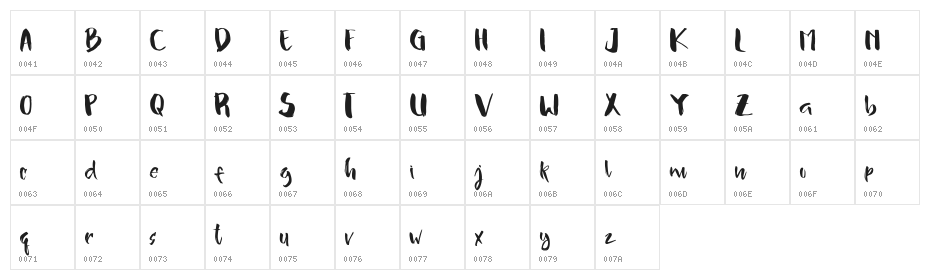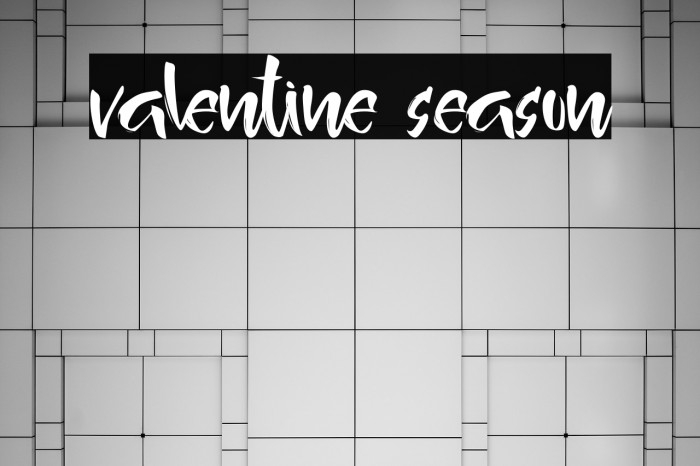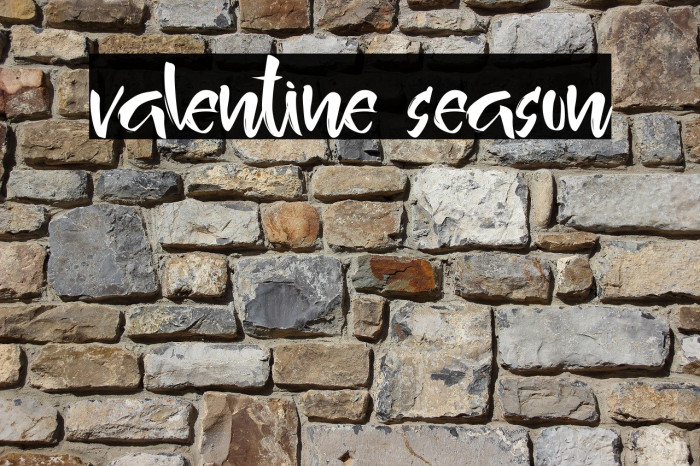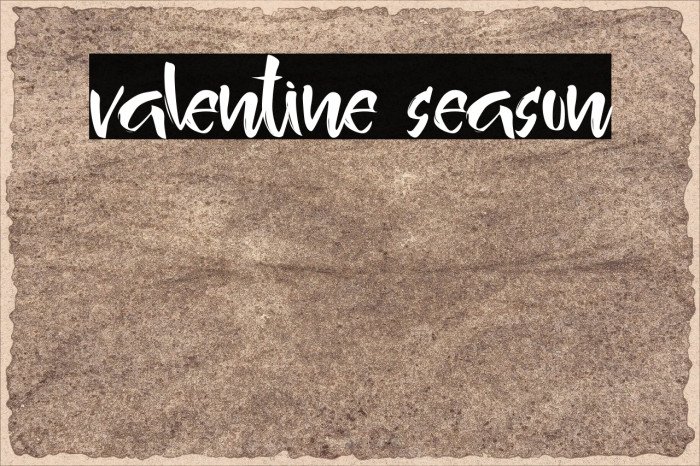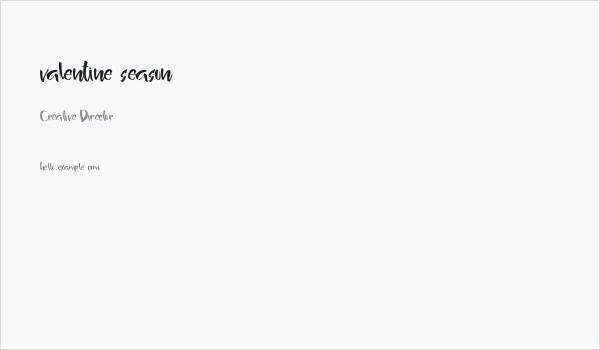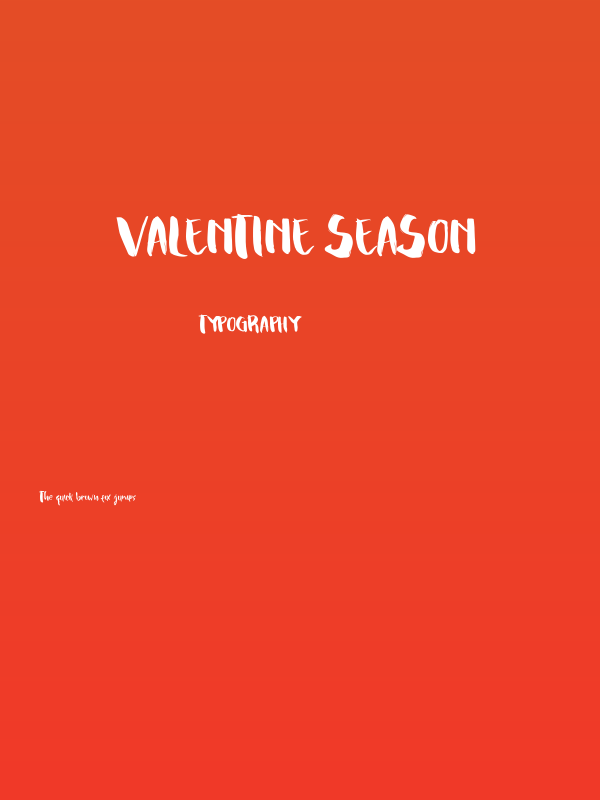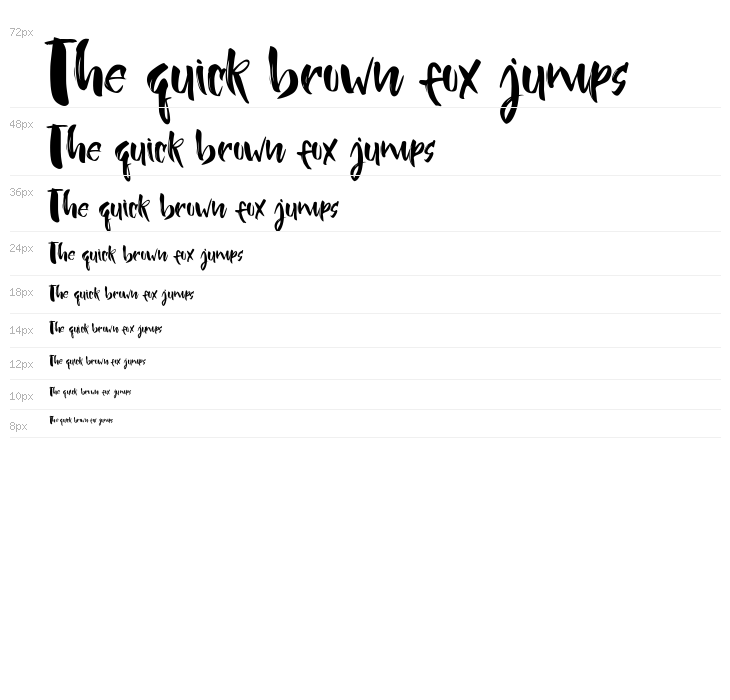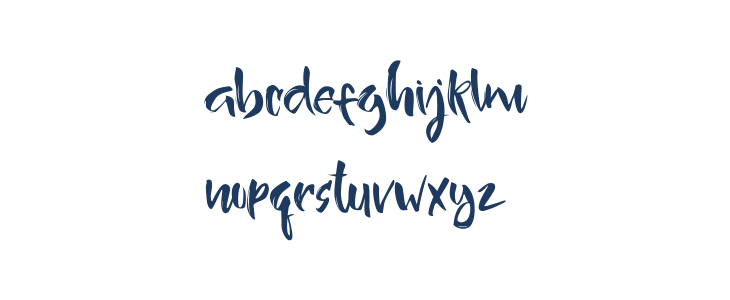
valentine season Font
valentine season Description
This font exudes a lively and expressive character with its bold, brush-like strokes. The uppercase letters are robust and dynamic, while the lowercase letters maintain a playful and fluid appearance. The strokes vary in thickness, adding a sense of movement and energy. The overall style is reminiscent of hand-painted signage, giving it a personal and artistic touch. The font's unique style makes it suitable for creative projects that require a touch of personality and flair.
| Proposed Projects | Ideal for greeting cards, posters, branding projects, and any design that needs a personal, artistic touch. |